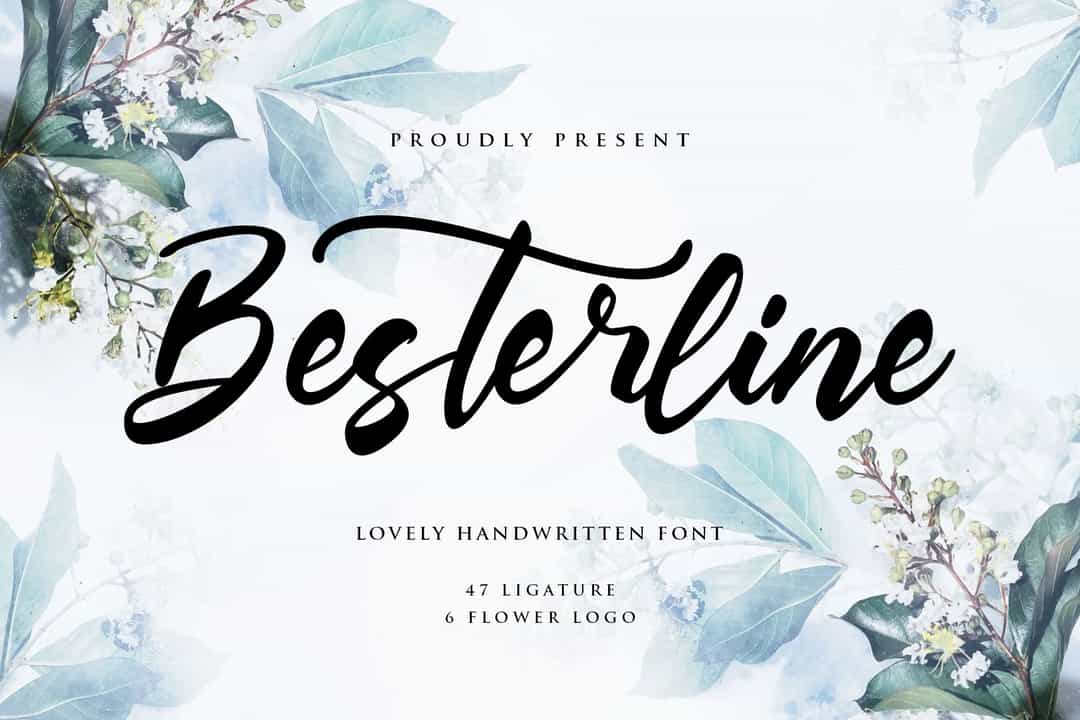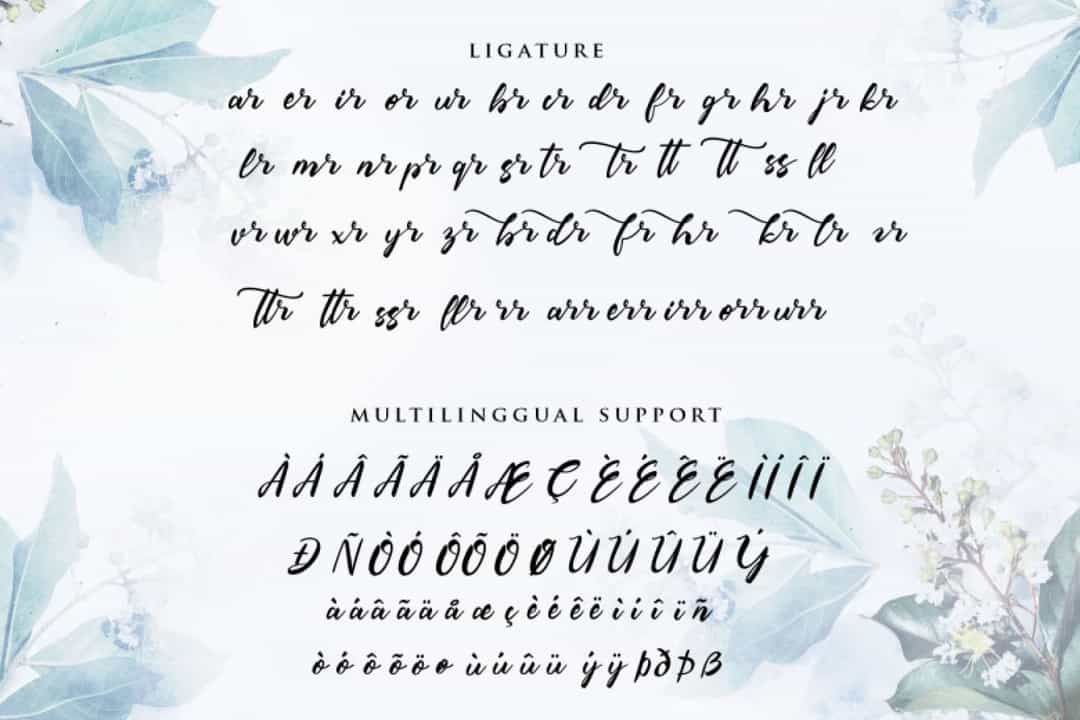
Discover Besterline Font, part of the Calligraphy Handwritten Script collection—a versatile and unique font perfect for adding a personal touch to your projects. Download it for free and enjoy crafting designs with style, from invitations to social media posts. This font is available exclusively for personal use, giving you the freedom to create without limits. Unlock your creativity with Besterline Font today!
Besterline is an eye-catching handwritten font, boasting bold and contemporary lines with calligraphic characteristics – ideal for digital and branding projects! Use this font for logos, social media sites blog posts, Instagram stories as well as branding of business cards or any other design projects!